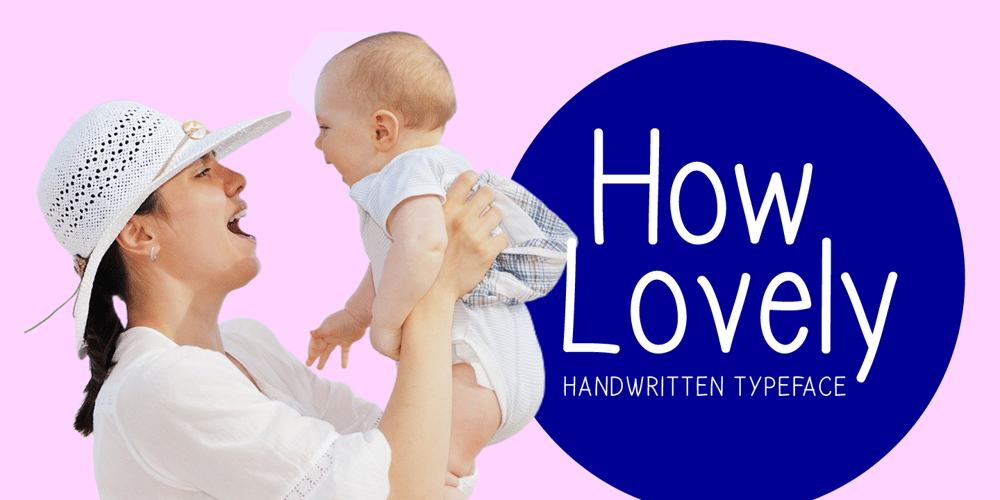
How Lovely Font Family was designed by Md Shohail Bhuian and published by Seemly Fonts. How Lovely contains 1 styles and family package options. How Lovely is a brand new handwritten font perfectly suited for stationery, logos, t-shirt, paper, print design, website header, photo frame, flyer, music cover, poster, image slider, and more.